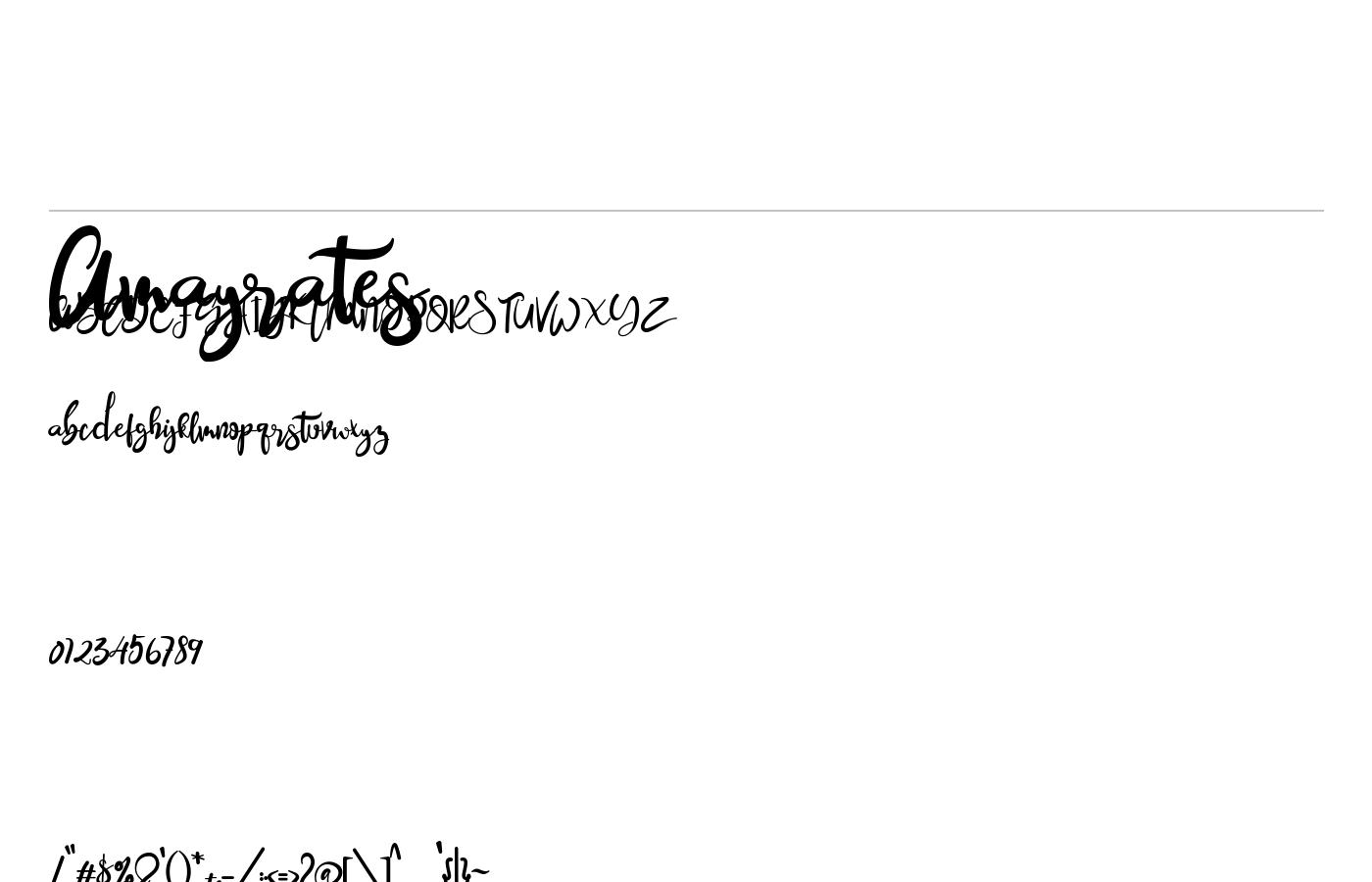
Amayrates is a playful and decorative script font characterized by its lively, hand-drawn style with varied stroke thickness and whimsical letterforms. It features a tall x-height with flowing, connected lowercase letters that give it a casual yet artistic feel, making it ideal for creative projects, invitations, branding, and decorative headlines where a personal and expressive touch is desired. Its unique character shapes and moderate stroke contrast help convey warmth and individuality, perfect for fashion, lifestyle, and artistic branding.
Amayrates Font
About Amayrates Font